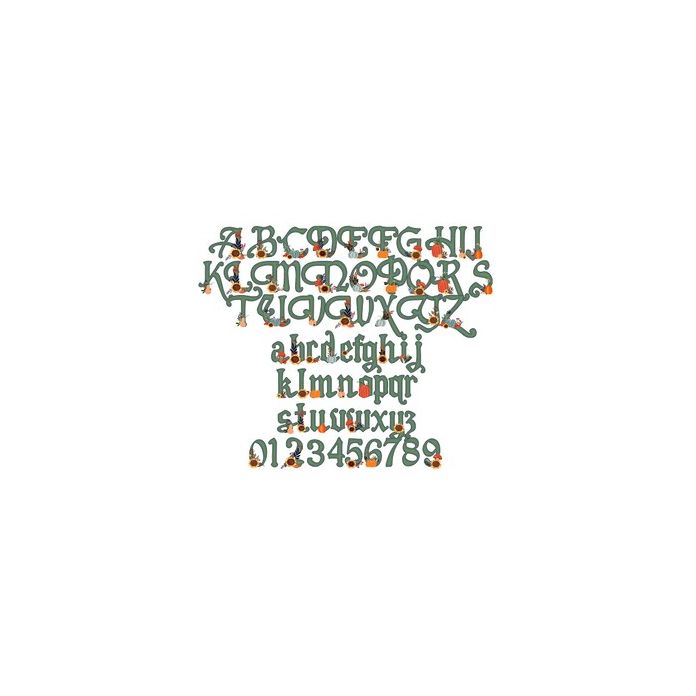
This full-color font features Thanksgiving florals, pumpkins and more on pretty serif lettering. There is an alt case w/ additional colors you can access through your system or Silhouette's glyph map.